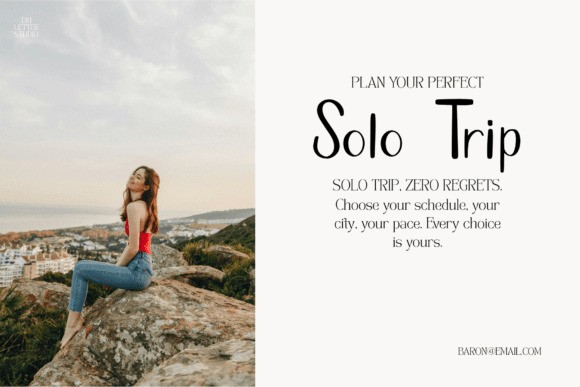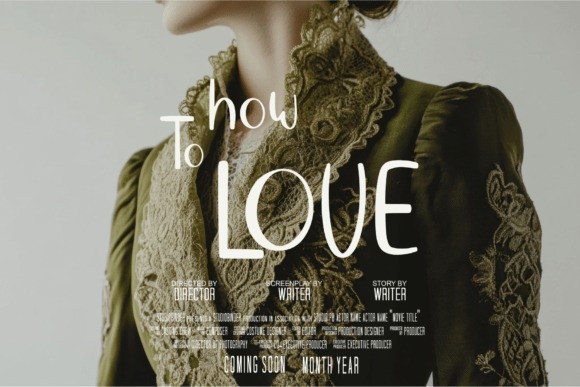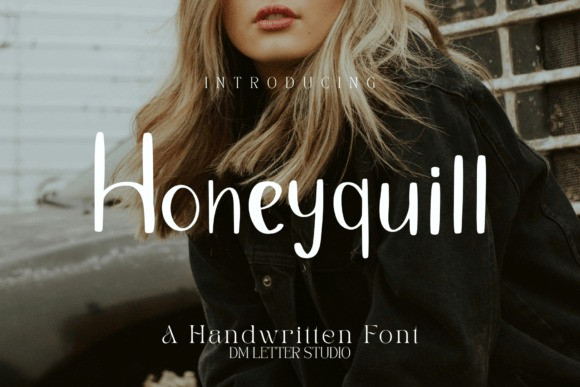
Honeyquill Font
Honeyquill Font is a warm, handwritten script with sweet, flowing curves. Letters feel soft and friendly. Strokes stay smooth, so your words read fast on invitations, logos, packaging, stickers, and thumbnails. Use it for wedding suites, bakery brands, candle labels, and cozy lifestyle posts. Moreover, Honeyquill pairs beautifully with modern serifs and clean sans fonts, which keeps layouts elegant and clear.
Where Honeyquill Font shines
Set short phrases like “Sweet Home,” a couple’s names, or a boutique logo. Then add thin lines, light shadows, or a soft foil texture for depth. Since spacing is tuned for headlines, mockups come together in minutes. As a result, you can launch coordinated sets for menus, tags, and social graphics with less editing. Plus, the smooth curves keep vinyl cuts and foil stamps crisp at any size.
Fast setup, polished results
Design tips for Honeyquill Font
Keep copy short and let the letterforms breathe. Pair Honeyquill headlines with a quiet serif for body text and prices. Meanwhile, add micro-tracking on all caps, or tighten name pairs for a luxe look. Because the script is smooth, textured paper, wax seals, and metallic details lift perceived value. However, avoid long sentences on tiny labels. Names, dates, and concise phrases hit hardest.